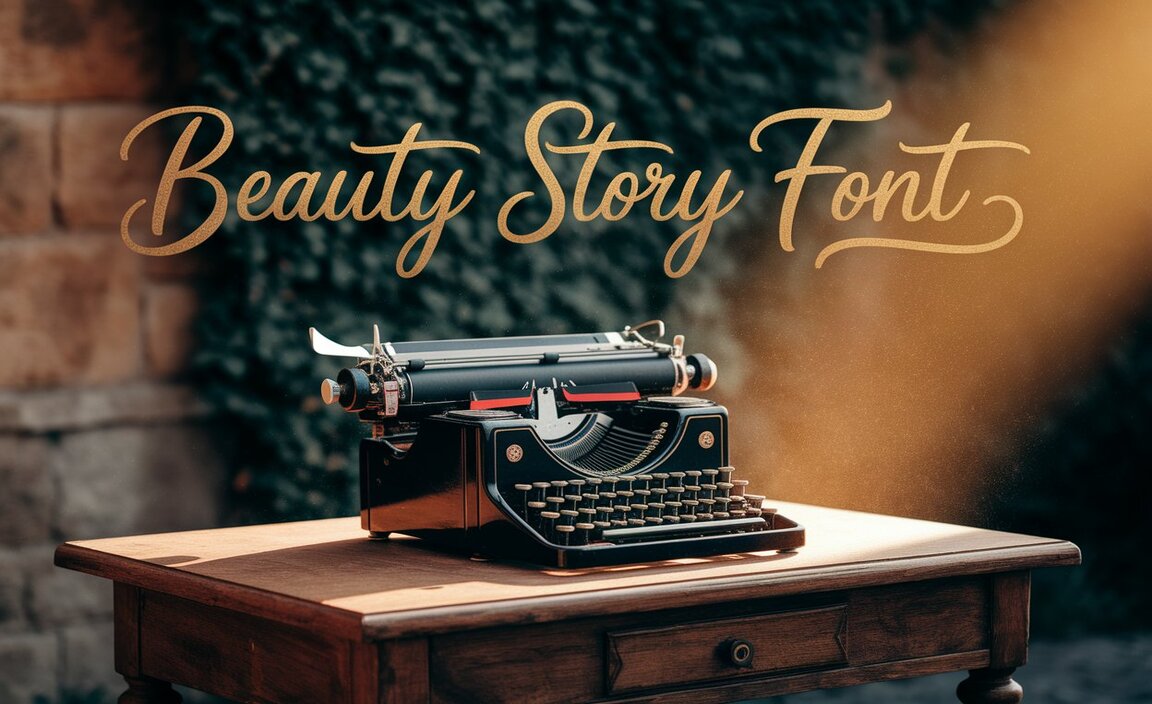
The Beauty Story Font, designed by Burhan Afif and published by HansCo, is a contemporary handwritten script font that combines elegance with creative versatility. Its clean curves, smooth flow, and refined aesthetic make it a perfect choice for both professional and personal projects. From Instagram stories to greeting cards and print templates, Beauty Story Font elevates every design with its natural charm.
Type Of Beauty Story Font (Font Family)
The Beauty Story Font Family includes a single, beautifully crafted style:
- Beauty Story Regular
| Style: | Handwritten |
Using Occasions Of The Beauty Story Font
The Beauty Story Font’s adaptability makes it ideal for multiple creative uses, such as:
- Logos: Enhance your brand logo with a sophisticated and personalized touch.
- Social Media Graphics: Perfect for Instagram stories, posts, and creative market visuals.
- Print Templates: Elevate designs like posters, greeting cards, and business branding materials.
- Fashion & Beauty Products: Add elegance to branding for beauty products and fashion designs.
- Calligraphy & Typography: Its modern strokes add charm to calligraphy fonts and elegant typography projects.
Beauty Story Font Found In Use
This stylish font shines in:
- Printed Materials: Greeting cards, brochures, and posters.
- Branding: Fashion, beauty products, and sophisticated brand logos.
- Social Media: Stylish content for Instagram, Facebook, and Pinterest.
- Digital Content: Blogs, blog titles, and online designs.
The Beauty Story Font is a modern and elegant script that perfectly balances creativity and refinement. Its versatile design makes it suitable for social media, branding, calligraphy, and printed materials. With its character map for multilingual support and availability in user-friendly formats, this font is the ideal choice for adding a personal touch and timeless elegance to any creative project.
1.What Is Beauty Story Font, And Why Is It Special?
Beauty Story Font is a handwritten script font known for its smooth curves, elegant aesthetics, and modern design. It’s perfect for adding a personal touch to branding, instagram story designs, and greeting card projects. Its versatility makes it a favorite for combining beauty and functionality in creative designs.
2.What Styles Are Available In The Beauty Story Font Family?
3.Does Beauty Story Font Support Multilingual Designs?
Beauty Story Font has a character map that supports multiple languages, making it ideal for global branding, typography, and printed materials like posters and brochures. The character version ensures seamless integration into various projects.
4.What Are The Ideal Use Cases For Beauty Story Font?
This beauty font excels in several applications:
- Brand logos: Perfect for creating memorable and elegant brand logos.
- Social media graphics: Ideal for crafting stylish instagram story visuals and posts.
- Printed materials: Works beautifully for blog titles, print templates, and greeting cards.
- Fashion and beauty: Adds a touch of sophistication to beauty product branding and fashion campaigns.
6.What Makes Beauty Story Font Ideal For Modern Designs?